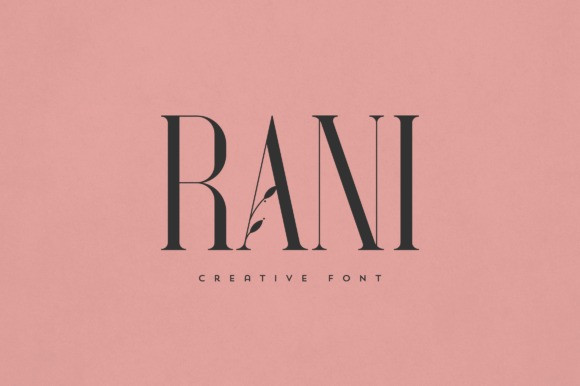
Rani Font
Rani Font is an elegant and versatile serif font that will make your typography truly unique! It will enchant every logo, branding, headline, or plain text!